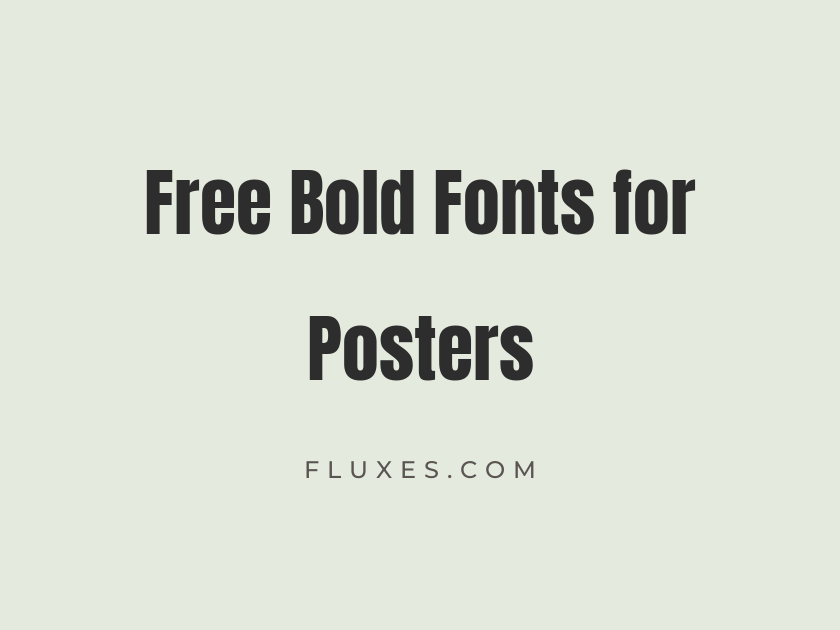
69 Best Free Bold Fonts for Posters
Anton is the default answer when a poster needs maximum density in minimum space. Its letterforms are almost absurdly condensed and heavy, which makes it brilliant for one or two-word headlines that need to fill a page.
It’s overused precisely because it works, so lean on unusual color or cropping to keep it from feeling generic.
Bebas Neue is the all-caps workhorse of modern poster design, tall and narrow with no lowercase to distract from its geometry. It pairs naturally with a simple sans body copy and never fights for attention it doesn’t need.
Thick, grounded, and slightly wider than most poster faces, Archivo Black reads like a headline from a mid-century newspaper blown up to full size. It has enough weight to anchor a layout even when everything else on the page is quieter.
Oswald in its bold cut channels the condensed gothic lettering used on old street signage and transit posters. It’s versatile enough to run as a headline or a subhead, which makes it a smart pick when you need consistency across a whole print series.
Fjalla One is condensed but friendlier than most of its rivals, with slightly rounded terminals that soften its impact. It suits community event flyers and market posters where boldness shouldn’t tip into aggression.
Staatliches has a compressed, slightly wonky character that feels hand-cut, like old letterpress poster type. It works best big, since its personality gets lost at small sizes.
League Gothic
A faithful revival of an early twentieth-century gothic, League Gothic brings genuine vintage poster and protest-sign lineage to a screen-native font. Its bold weight is dense and upright, ideal for stacked headline type.
Six Caps
Six Caps is one of the most extreme condensed faces available for free, squeezing enormous type into narrow columns. Use it sparingly and at large sizes; anything smaller than a headline turns to a thin vertical smear.
Barlow Condensed’s black weight has an athletic, engineered feel that suits sports posters and event signage. It’s part of a full variable family, so a single download gives you matching lighter weights for supporting text.
Saira Condensed
Saira Condensed at black weight is sturdier and more technical-looking than most condensed grotesques, with a faint architectural feel. It’s a solid choice for anything with a modern, systems-design sensibility.
Teko brings an Indian-inspired condensed structure with sharp, angular joins that give it real presence at poster scale. Bold weight tightens the letterforms further, which suits stacked, all-caps headlines.
Yanone Kaffeesatz
This one has a relaxed, café-chalkboard warmth even in its bold cut, making it a favorite for food and drink event posters. It’s condensed enough for headlines but never feels cold or industrial.
Khand
Khand’s bold weight is blocky and geometric with a faint technical edge, good for construction, sports, or STEM-themed posters. It holds its shape cleanly even when scaled up dramatically.
PT Sans Narrow
Practical rather than flashy, PT Sans Narrow bold has the tone of an official announcement or government notice. It’s a good utility choice when a poster needs authority more than personality.
Kanit
Kanit’s black weight is a geometric sans with a Thai-Latin hybrid pedigree, giving it slightly unusual proportions that stand out from the usual grotesque crowd. It reads confidently at any size, from a flyer headline down to a ticket stub.
Exo 2 leans futuristic, with a technical, slightly angular geometry that suits tech launches, gaming events, and sci-fi themed posters. At black weight it turns genuinely heavy without losing its precise, engineered feel.
Poppins is a geometric sans built on true circles, and its black weight turns friendly and rounded into genuinely commanding. It’s popular for a reason: legible, contemporary, and easy to pair with almost any body font.
Inspired by the lettering of old Buenos Aires signage, Montserrat’s black weight balances geometric precision with just enough warmth to avoid feeling corporate. It’s a dependable headline choice when a poster needs to look polished rather than raw.